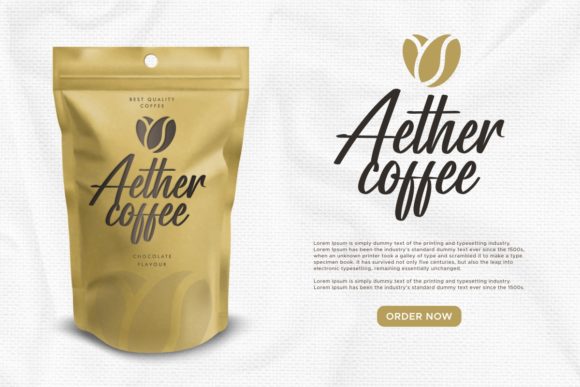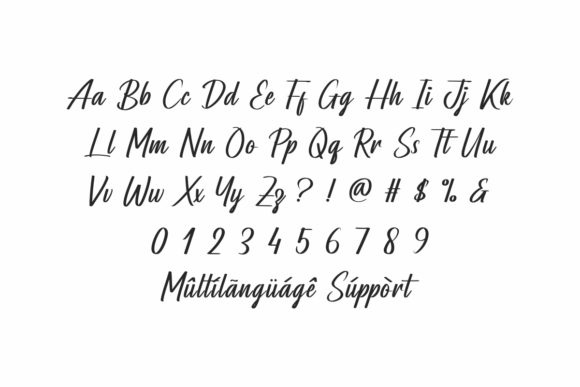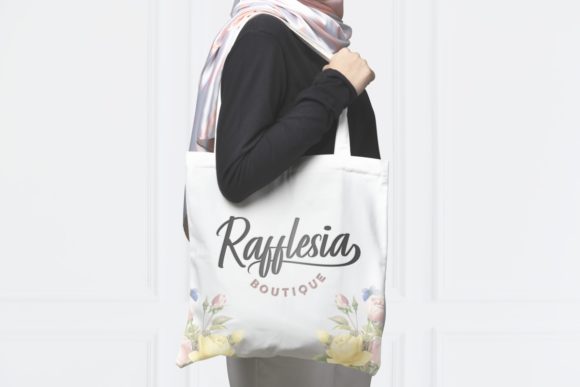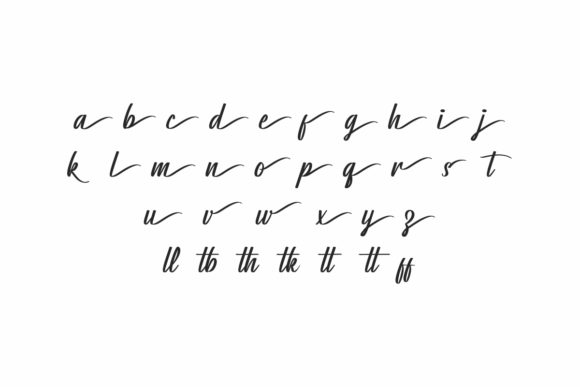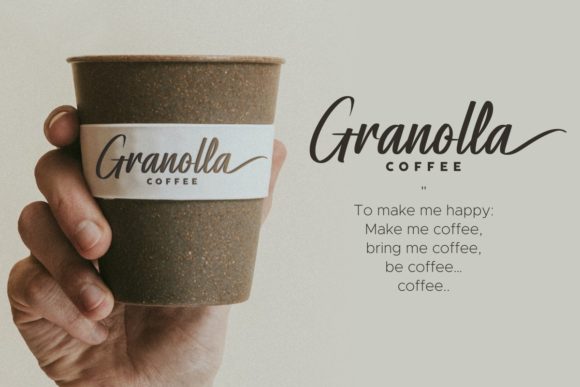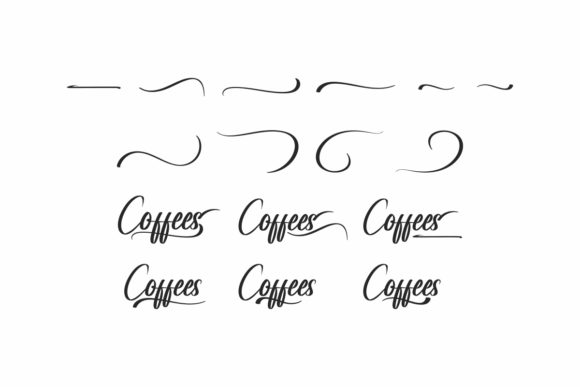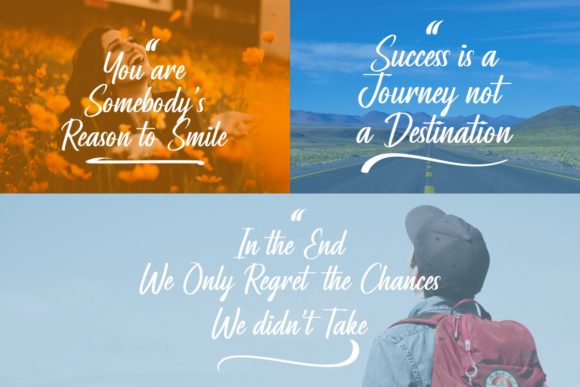
Coffees Font
About Coffees Font
Coffees is a sweet and cursive handwritten font. This gentle font will look gorgeous on a variety of design ideas. It will add a joyful and romantic touch to each of your projects!